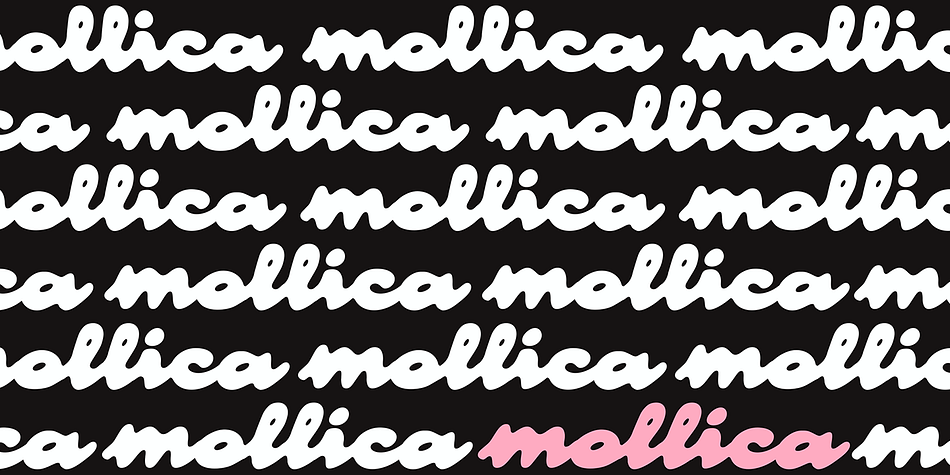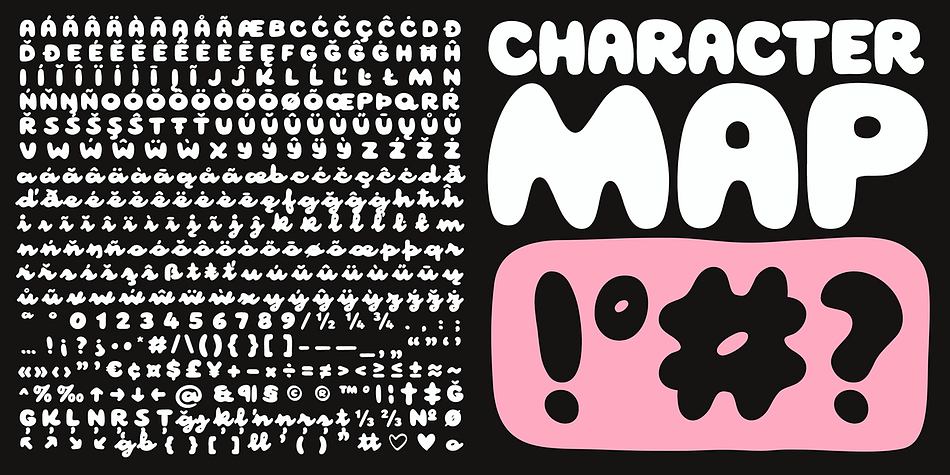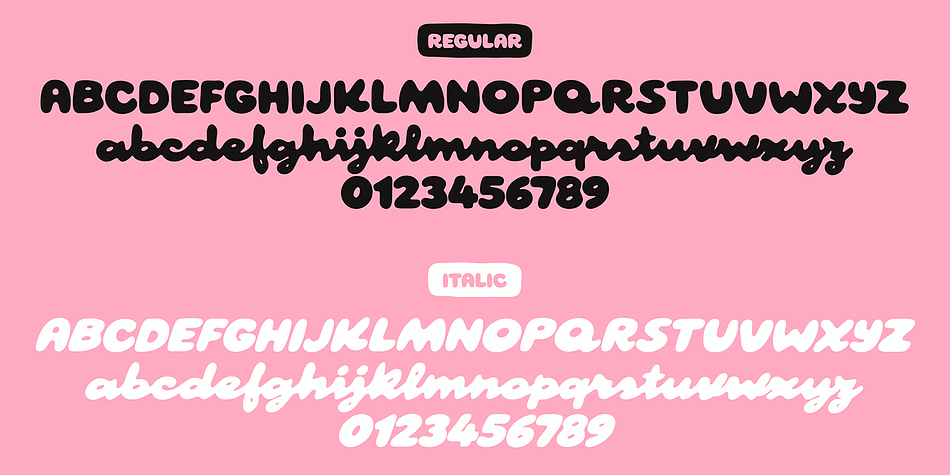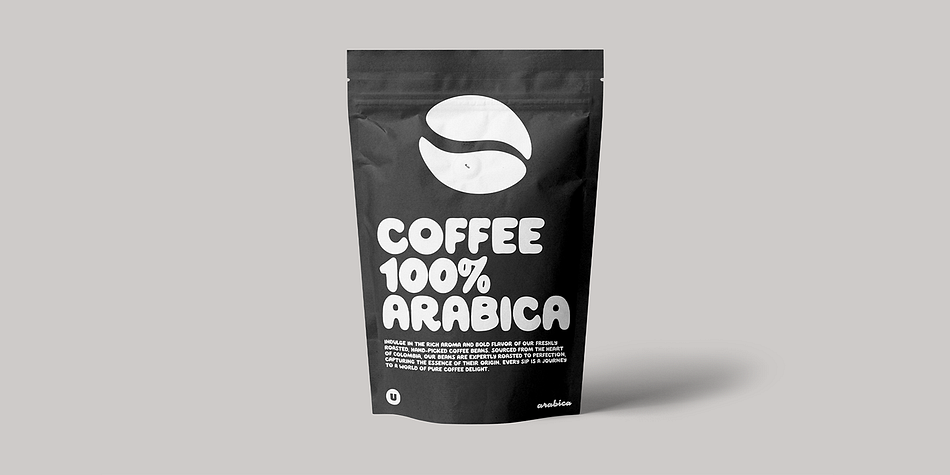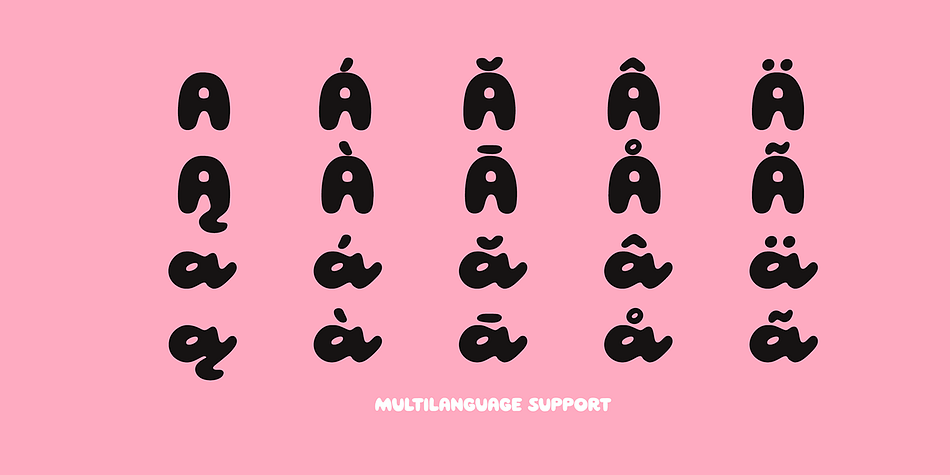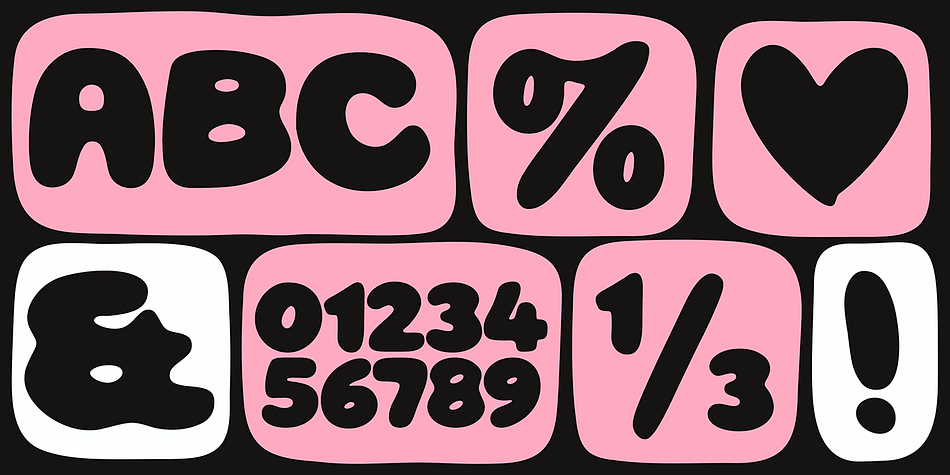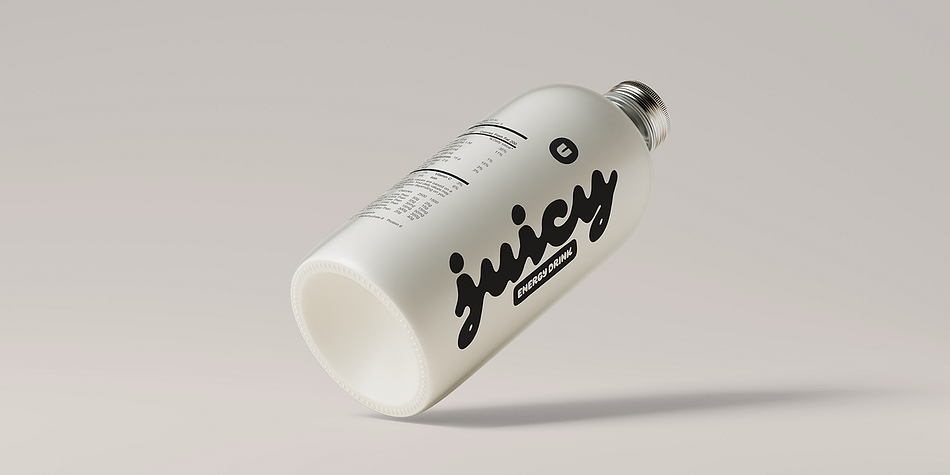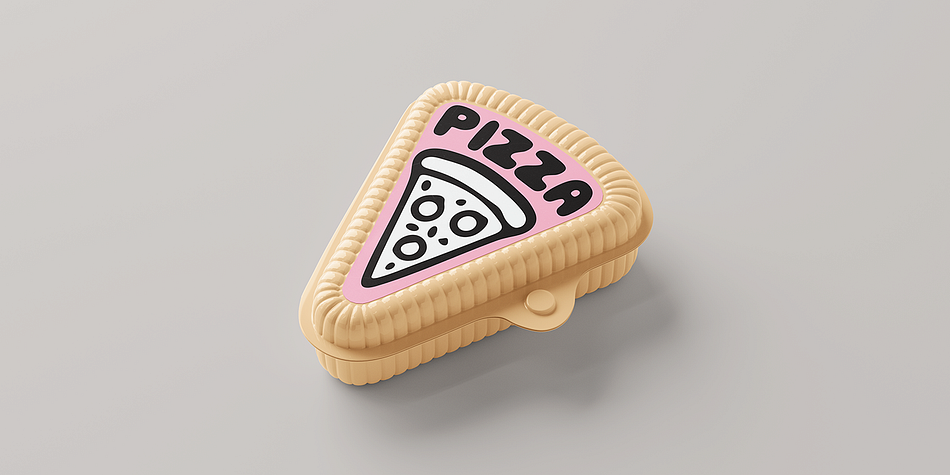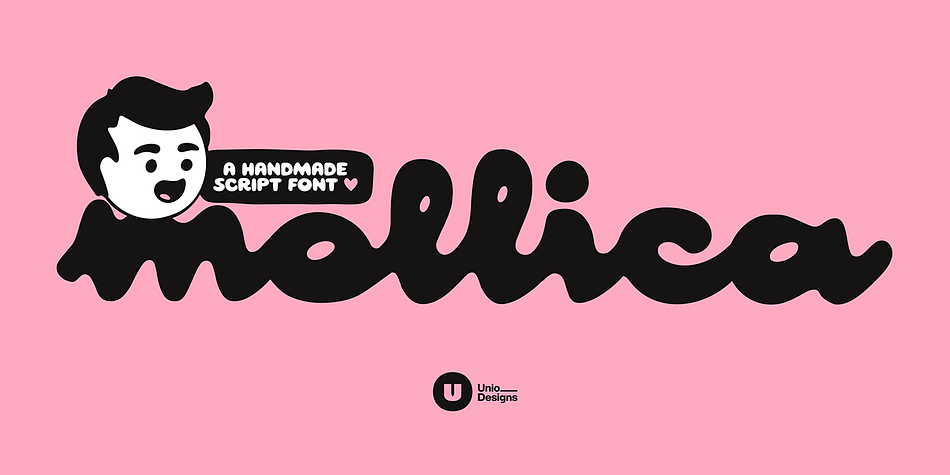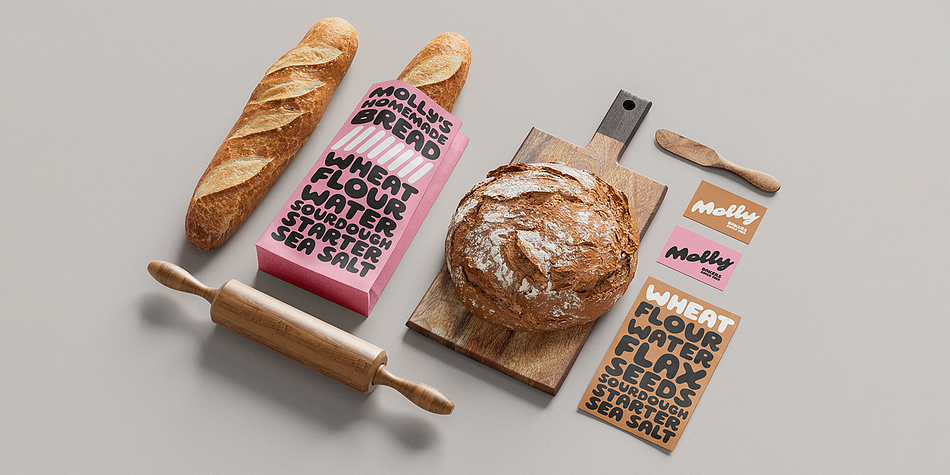
Mollica
Designed by Nicola Manzari and Bruno Pierini, Mollica is a brush script font family. This typeface has three styles and was published by Unio Creative Solutions.
Mollica is a handwritten font that exudes the charm of bold, casual strokes, combining sweeping brushwork with a natural, organic feel. Its design is crafted to bring an authentic, handcrafted quality to your projects.
The name “Mollica” draws inspiration from its Latin etymology, “mollīca”, a diminutive of “mollis” meaning soft. Just like the tender crumb of bread it refers to, this font conveys a sense of softness and warmth in its every curve.
Mollica comes with a rich set of ligatures for seamless text flow and stylistic versatility. It supports multiple languages and includes an oblique version for a sophisticated, italicized touch. This font balances consistency with spontaneity, delivering a harmonious organic vibe that enhances any design.
Whether you’re crafting heartfelt greeting cards, whimsical branding, playful labels, charming wedding invites, illustrative works, or inspirational quotes, Mollica adds an inviting and informal character to your creations.